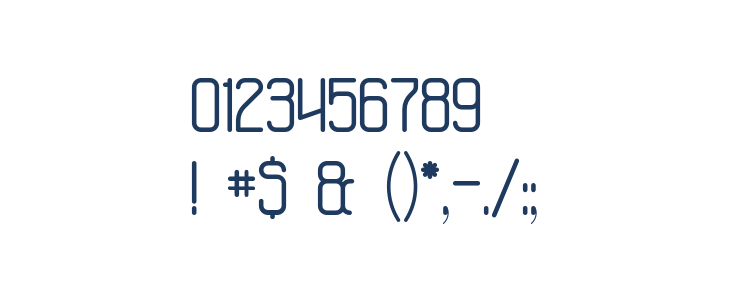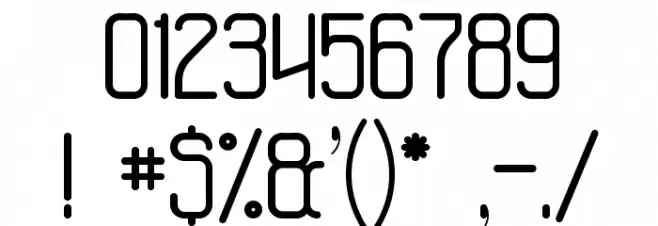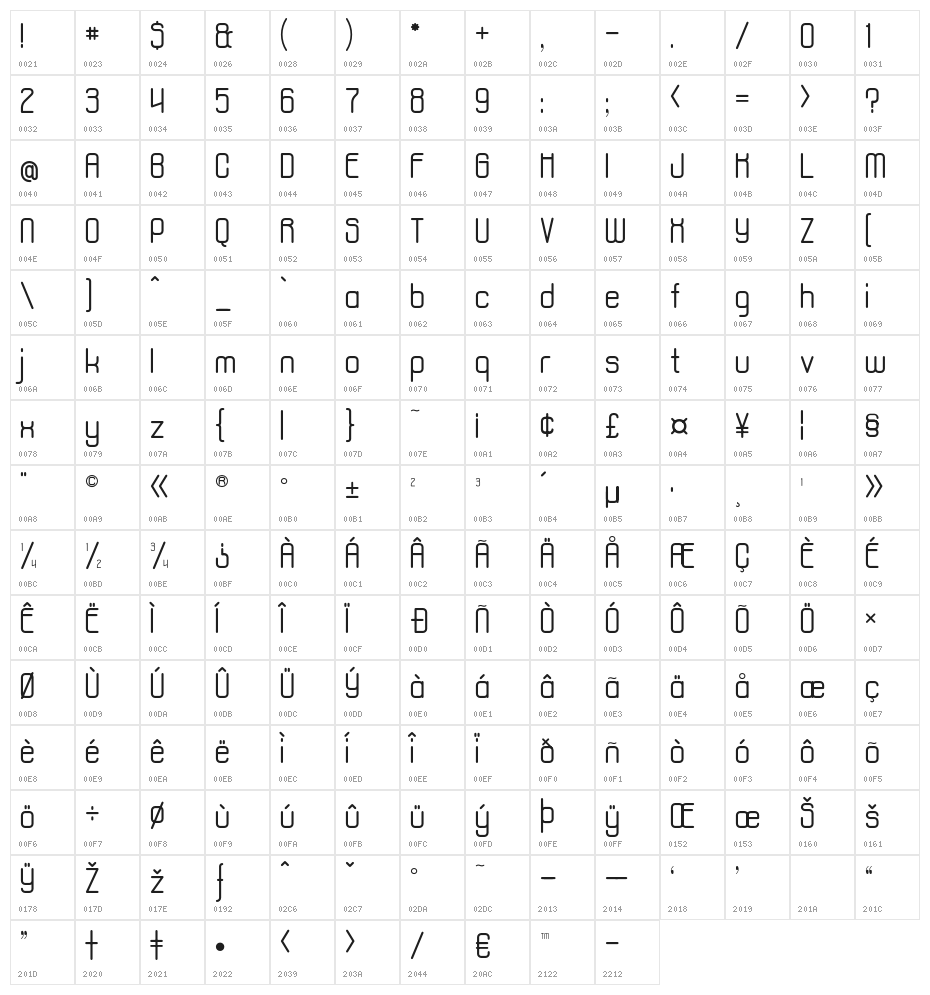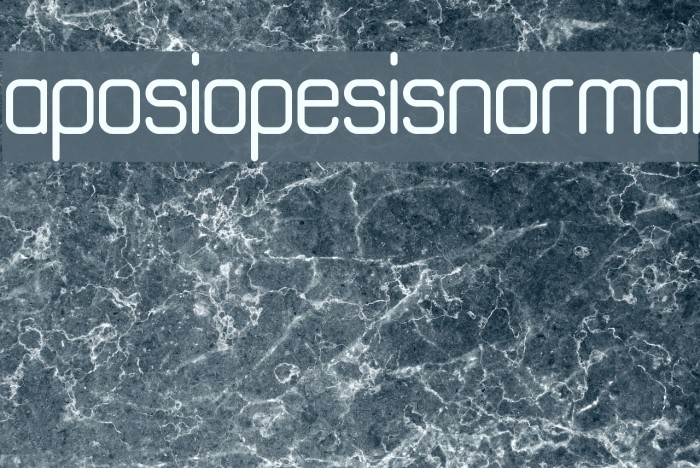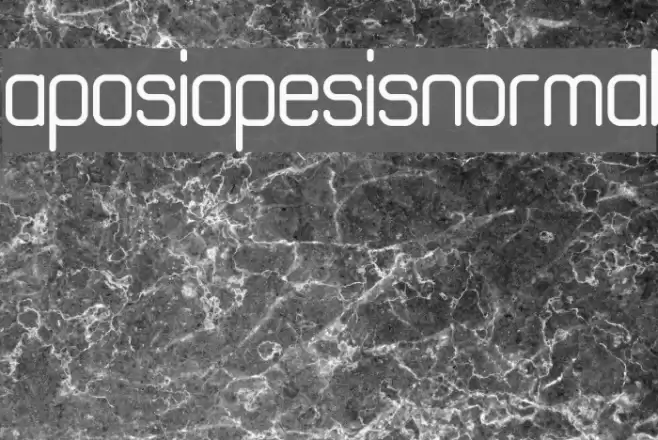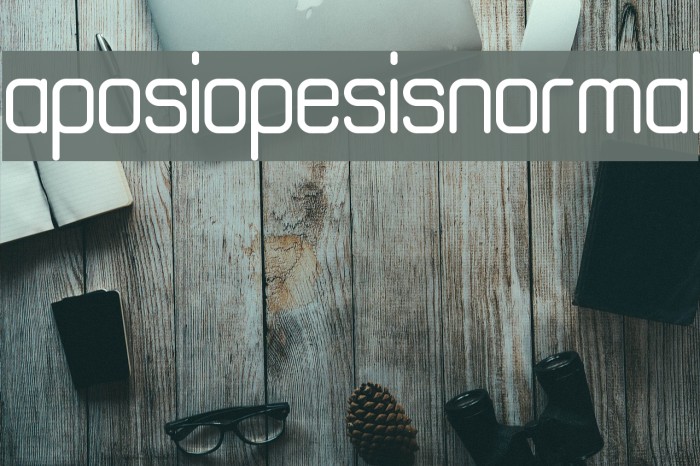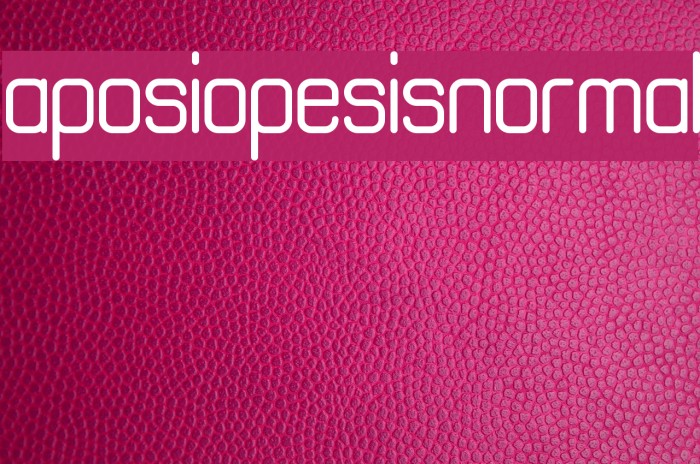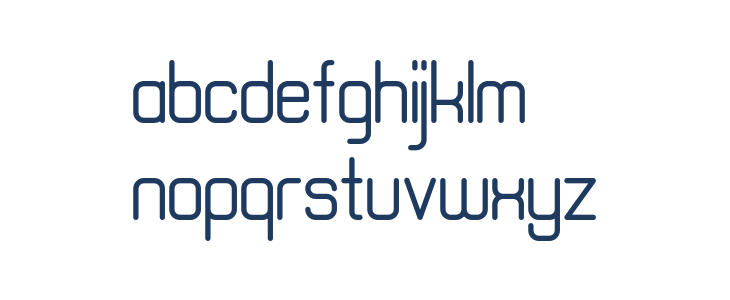
aposiopesisnormal Font
aposiopesisnormal Description
This font features a modern, geometric design with rounded edges and a clean, streamlined appearance. The characters are uniform in height and width, creating a harmonious and balanced look. The uppercase and lowercase letters maintain a consistent style, with smooth curves and straight lines that convey a sense of simplicity and elegance. The numerals and special characters follow the same design principles, ensuring a cohesive appearance across all elements. The overall aesthetic is contemporary and minimalistic, making it suitable for a variety of design applications.
| Use Case | Headlines, Logos, Digital Interfaces |
| Proposed Projects | Ideal for branding, digital interfaces, signage, and modern print materials. |